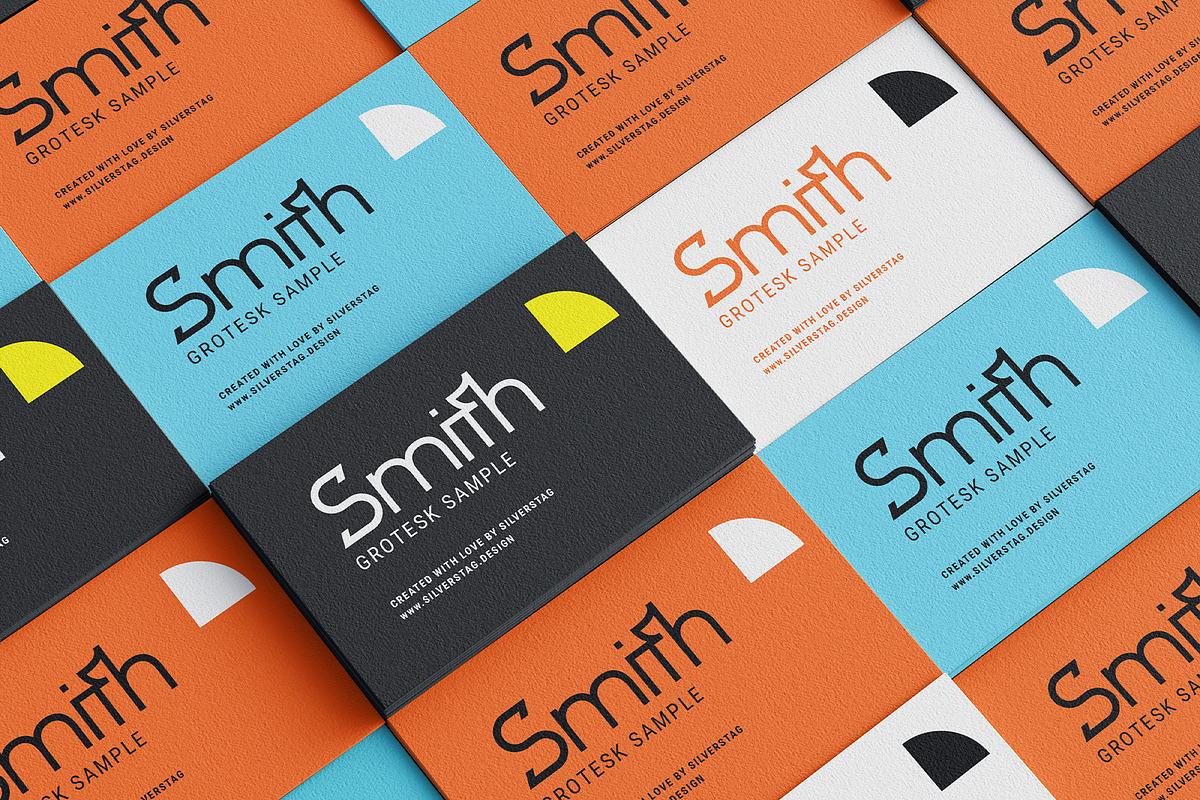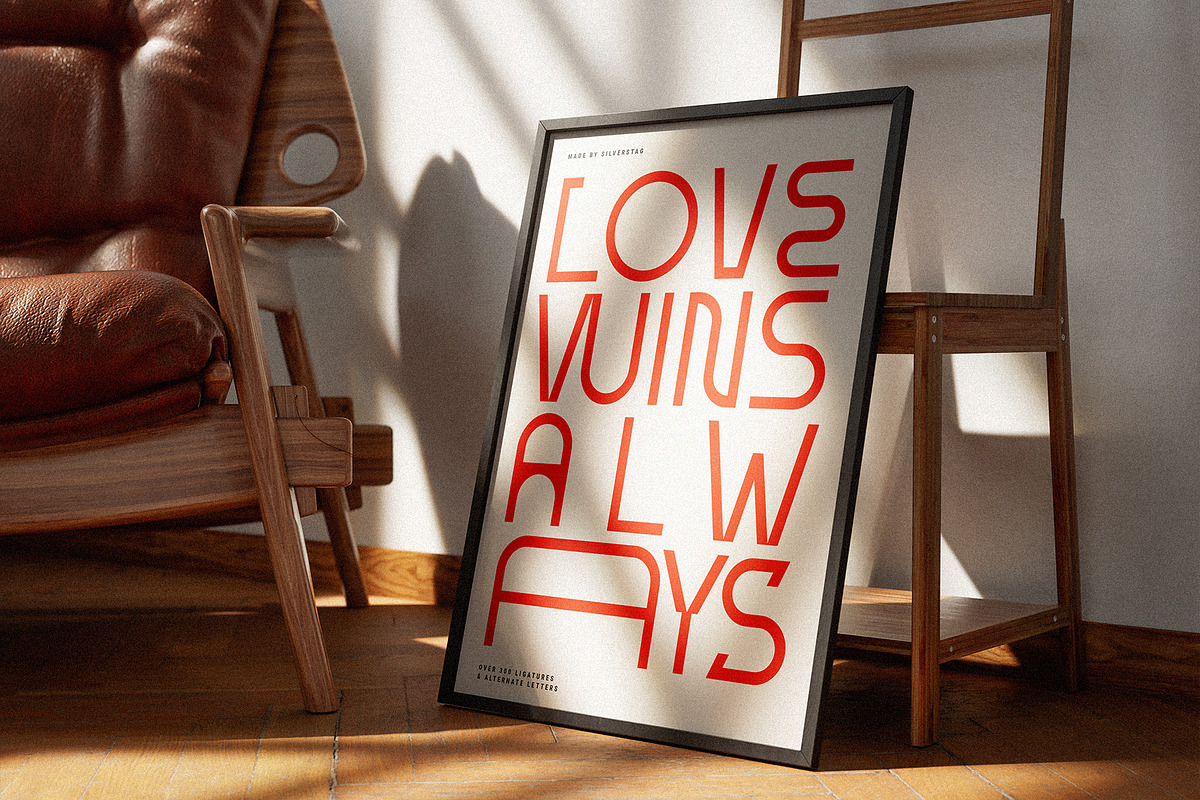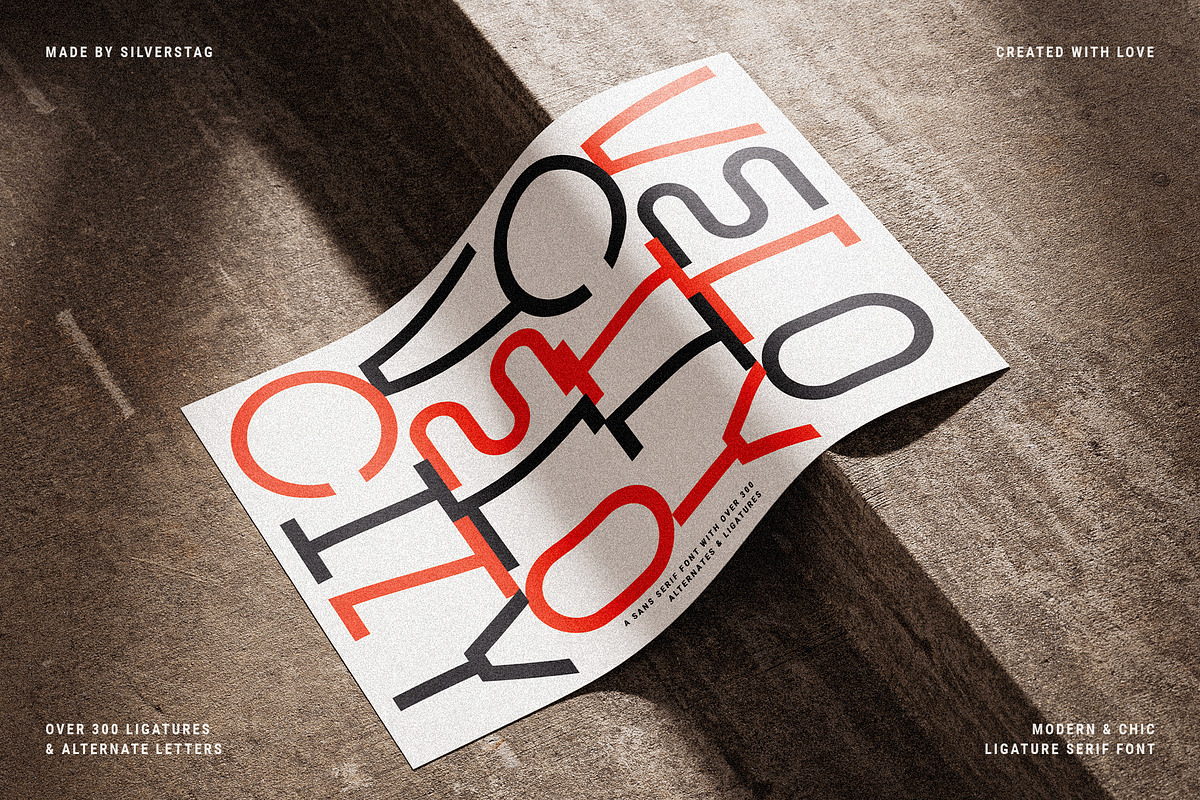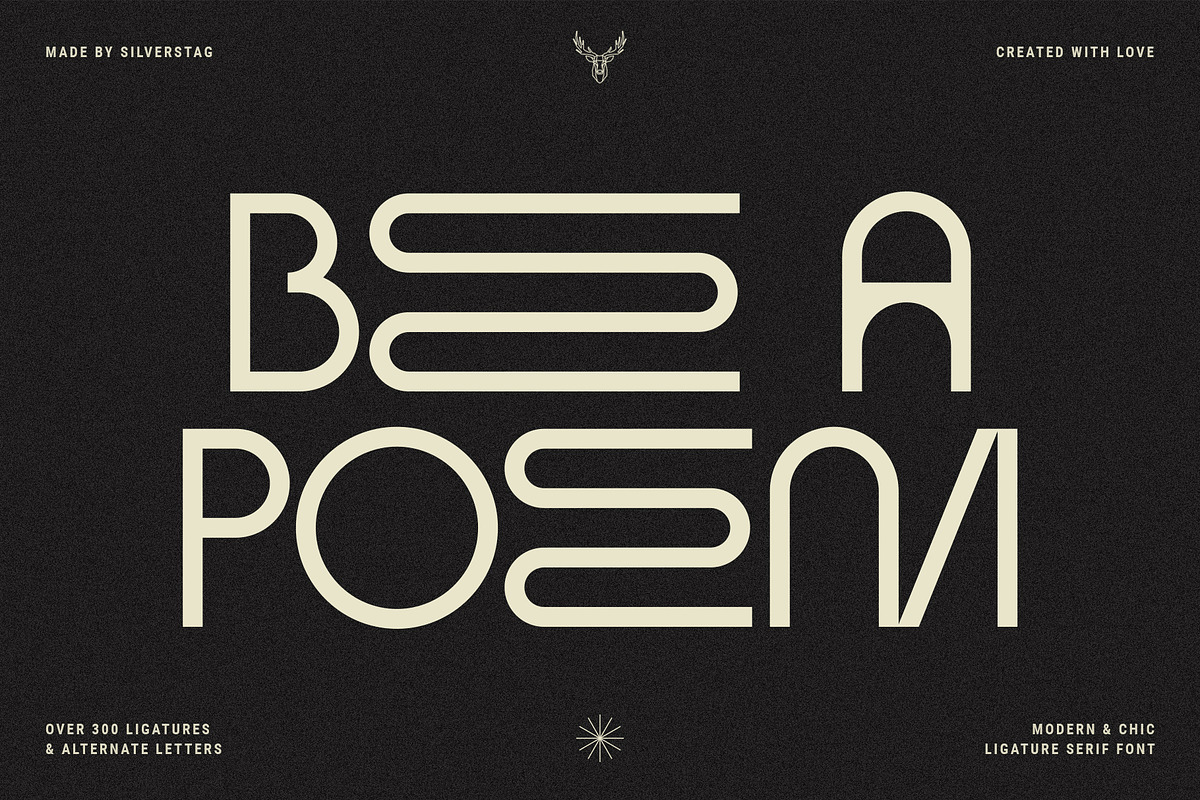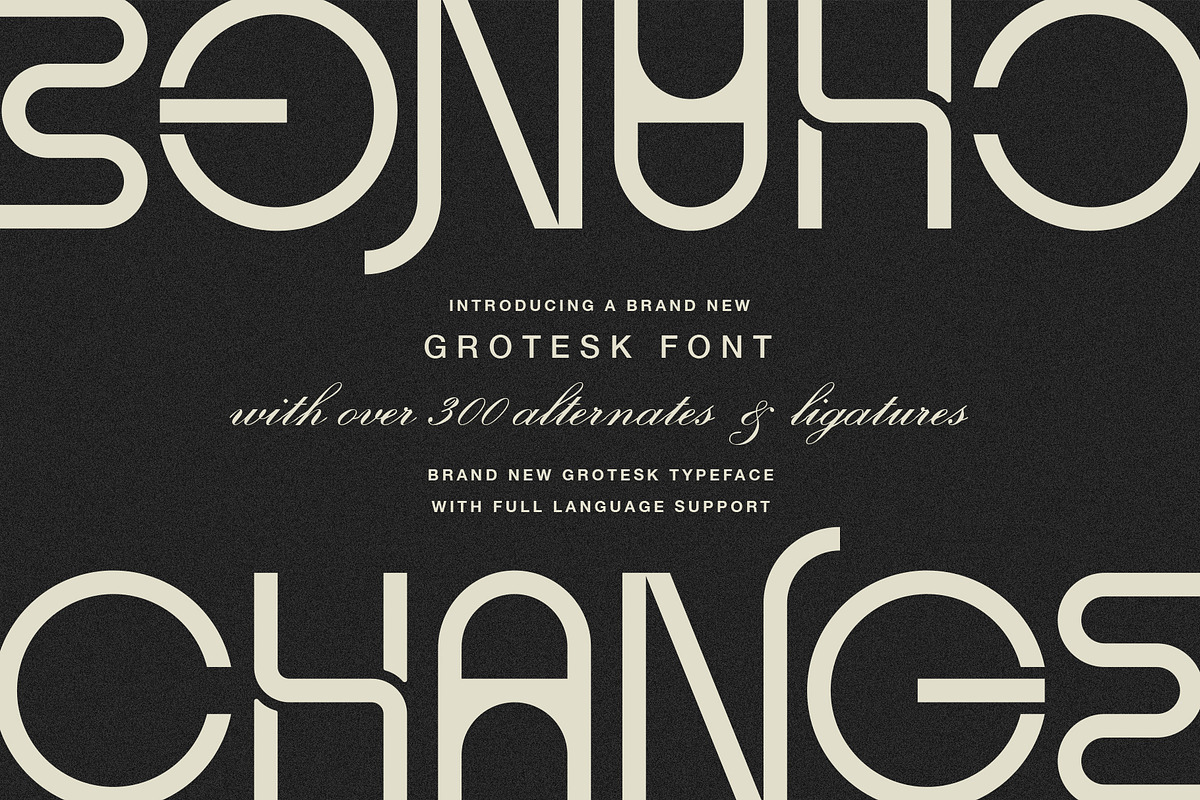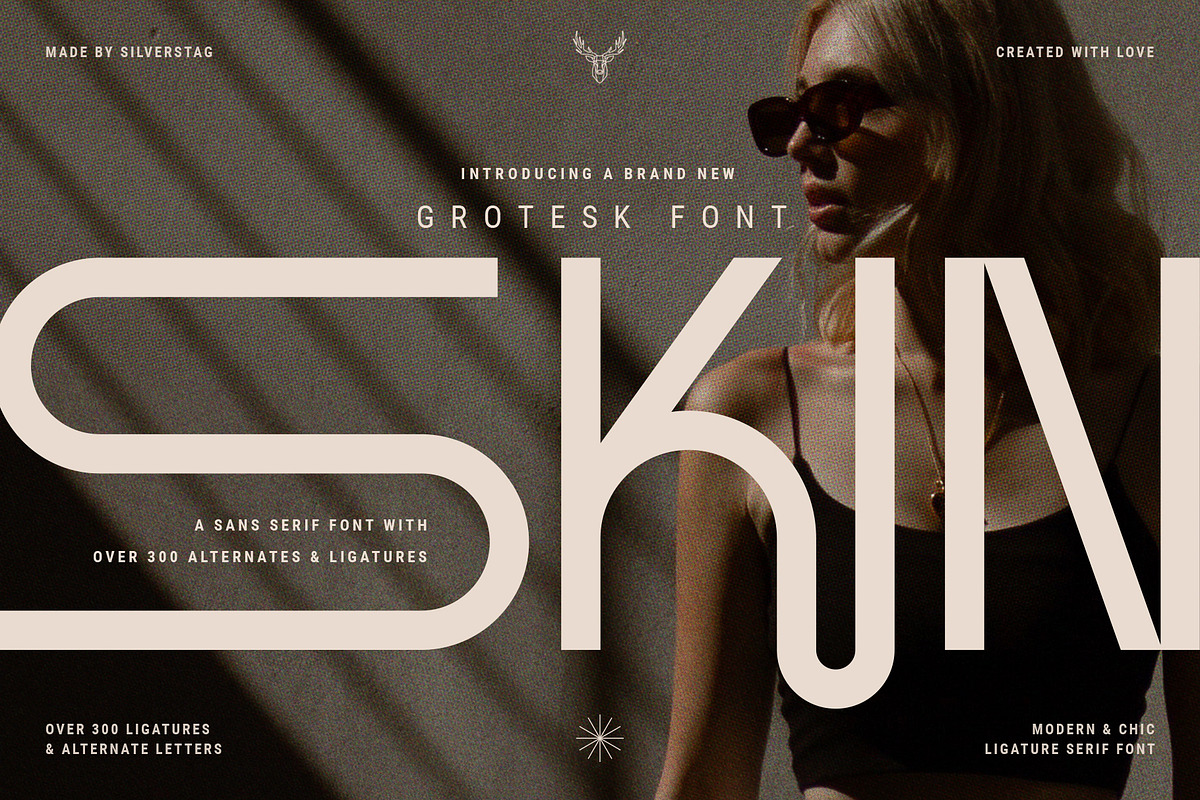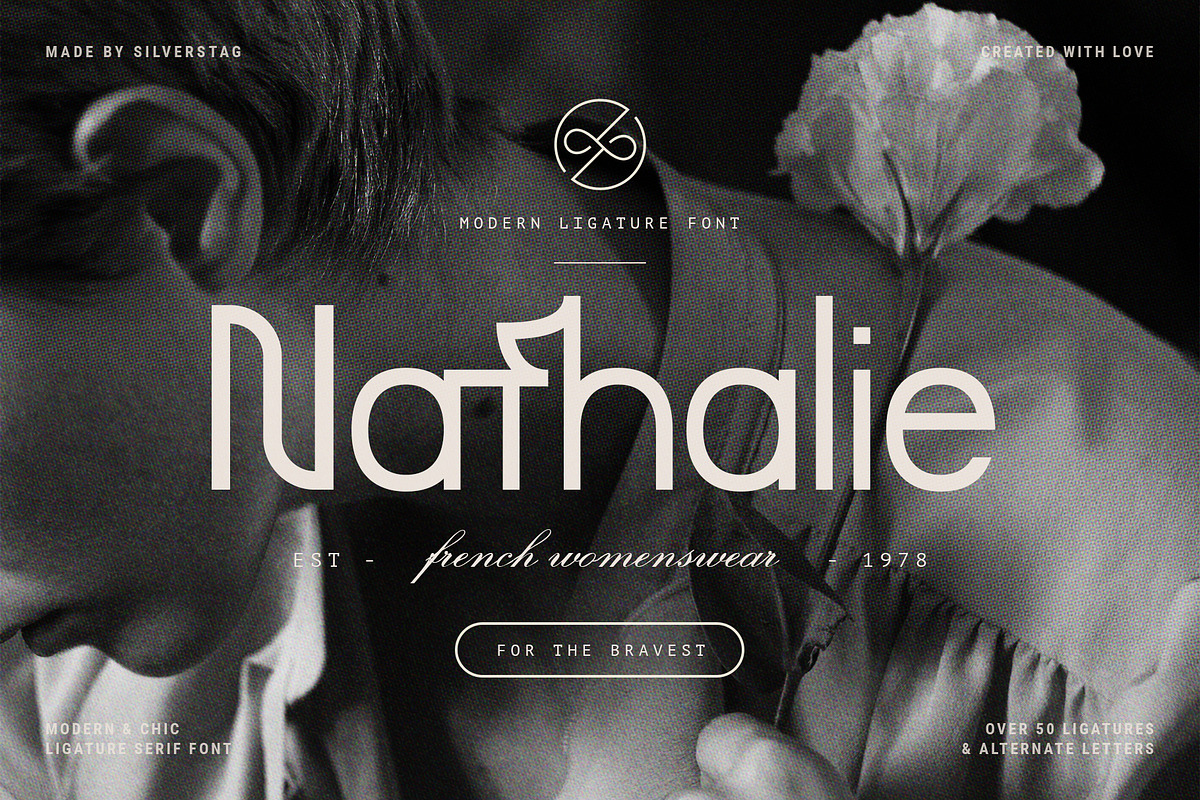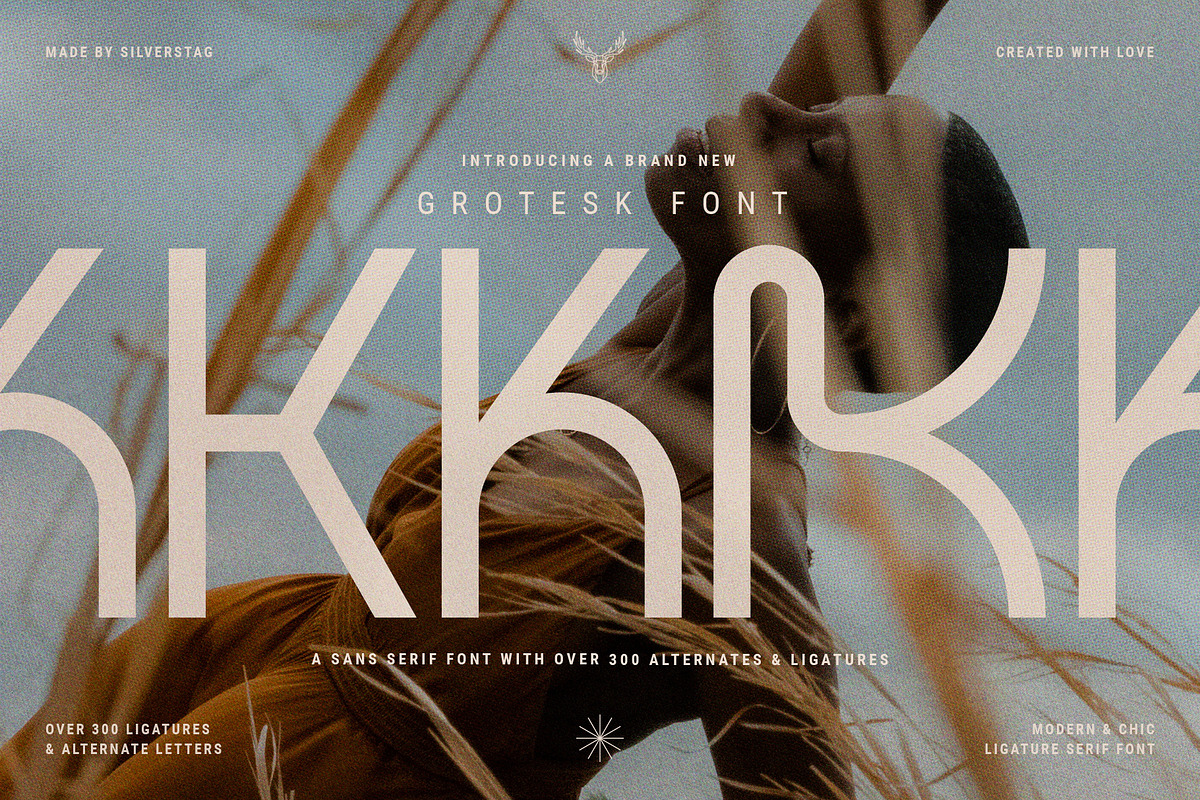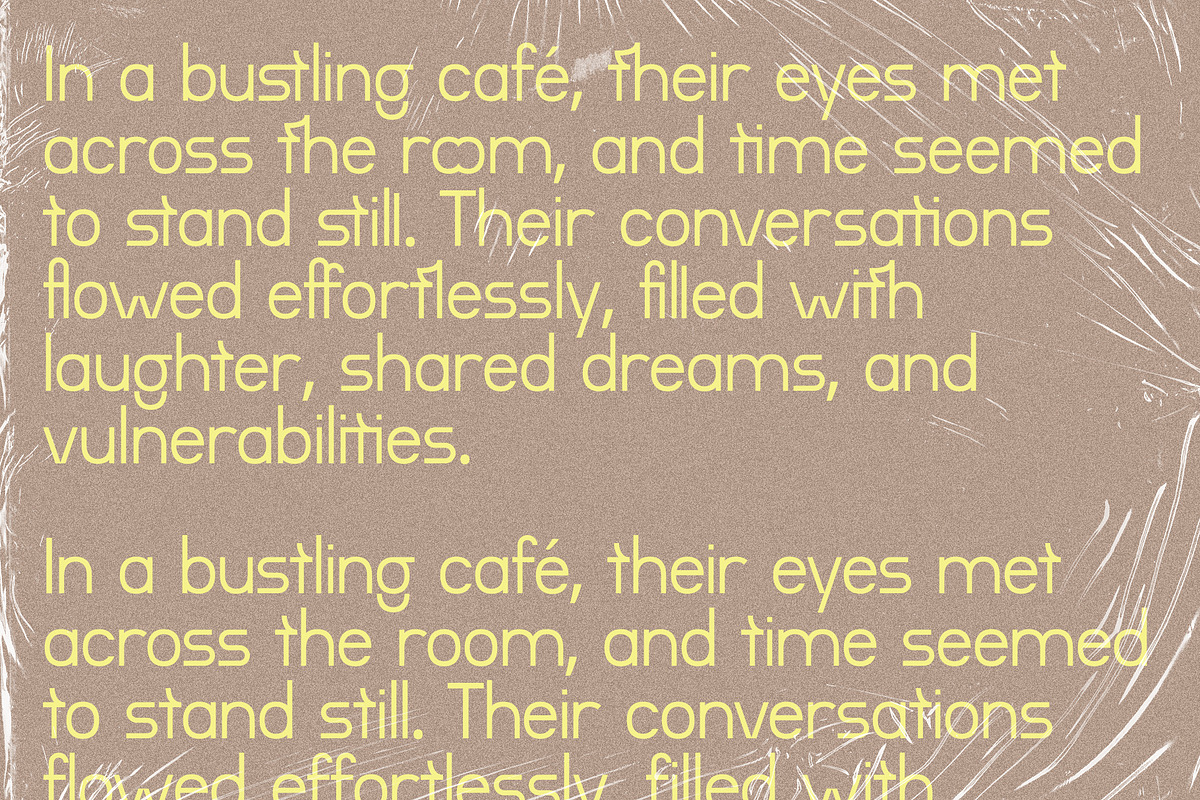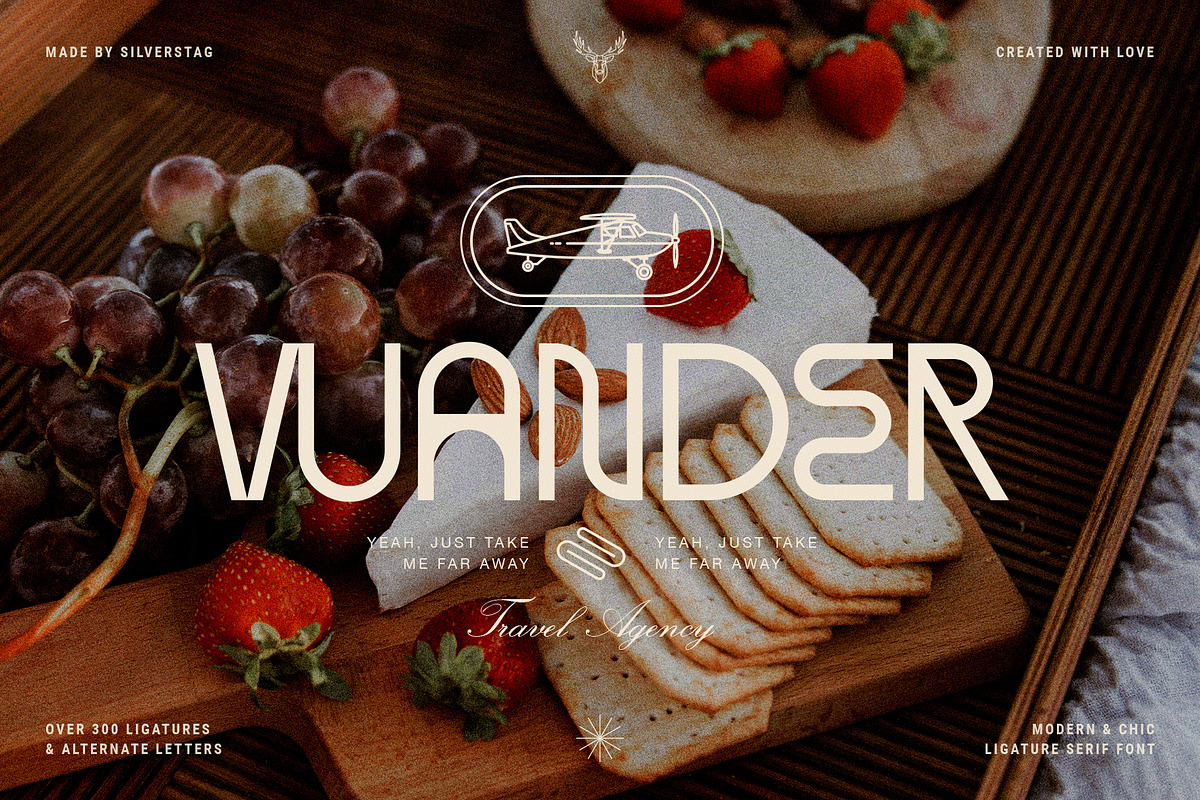
KULTURE GROTESK - Modern Sans Serif
I am thrilled to present you the KULTURE GROTESK, a brand new sans serif font meticulously crafted to elevate your design projects to new heights. This contemporary typeface seamlessly blends modernity, chic aesthetics, and boundless creativity to offer a truly unique and captivating visual experience. With its clean lines and refined forms, this grotesk font embodies a perfect balance of simplicity and sophistication.
Designed with the utmost attention to detail, it brings a breath of fresh air to the world of typography. Its versatility knows no bounds, making it the ideal choice for a wide range of applications, from editorial design and branding to web design and advertising. Whether you are looking to create a sleek corporate identity or add a touch of elegance to your personal projects, this font will undoubtedly leave a lasting impression.
One of the most exciting features of the new font is the inclusion of over 300 alternate letters and ligatures. These unique characters offer a world of possibilities, allowing you to create stunning and original typography. From distinctive logo designs to captivating headlines, this grotesk font enables you to break free from the ordinary and infuse your creations with a touch of individuality.
- Over 300 ligatures and alternate letters